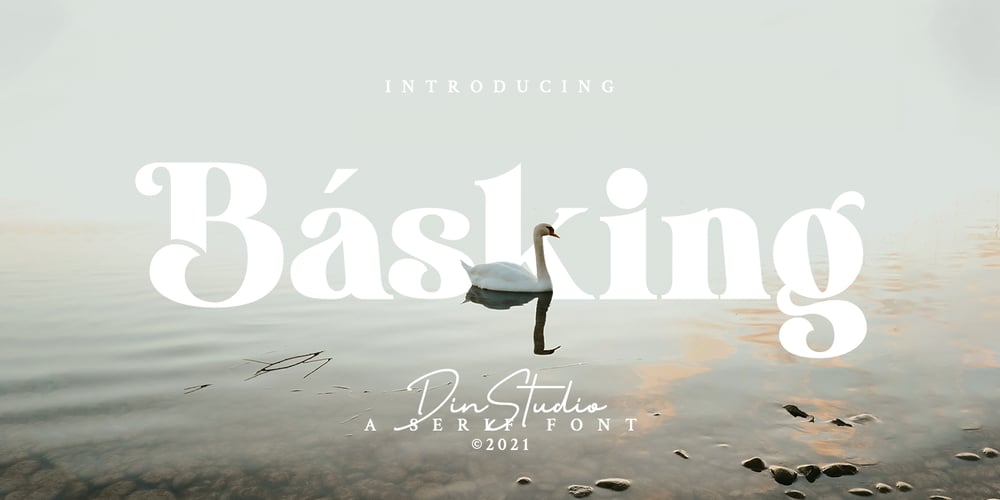
Basking Font Family was designed by Donis Miftahudin and published by Din Studio. Basking contains 1 styles and family package options. Dreaming to make your branding sparkle? Or maybe you’re looking for the perfect font to use on your invitations? Whatever you need – we’ve got the thing for you.Introducing Basking- A Serif FontA fabulous and elegant modern serif font that’ll engage your audience and make your branding stand out from the competition. This font can be used for a host of different content needs and projects. Perfect for social media branding projects, fashion designs, printed quotes, packaging, or even as a stylish text overlay to any background image. Our font always includes Multilingual option to make your branding globally recognized. Features: Alternates Standard Ligatures Swashes Multilingual Support PUA Encoded Numerals and Punctuation Thank you for downloading premium fonts from Din Studi